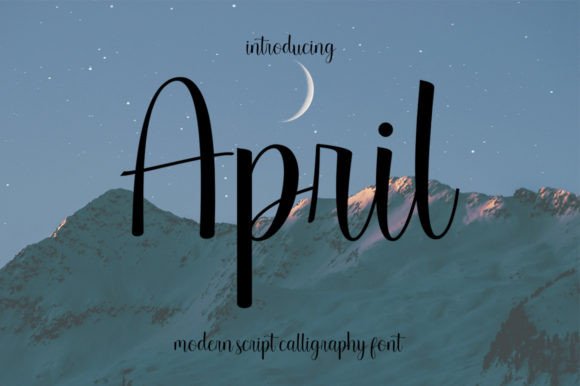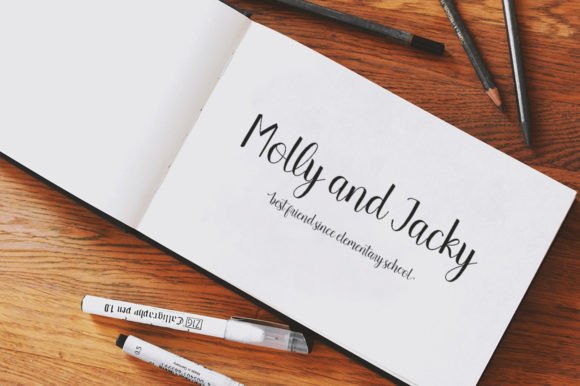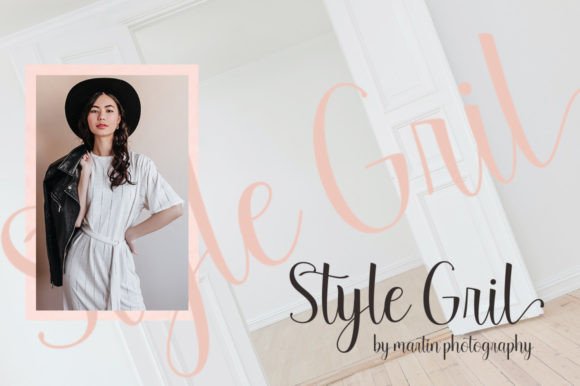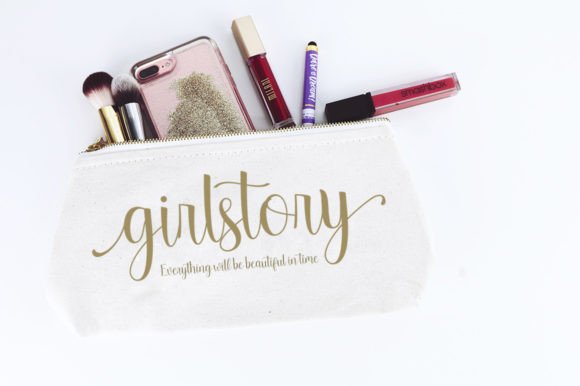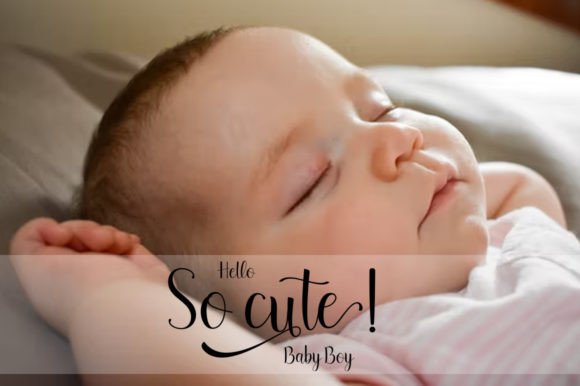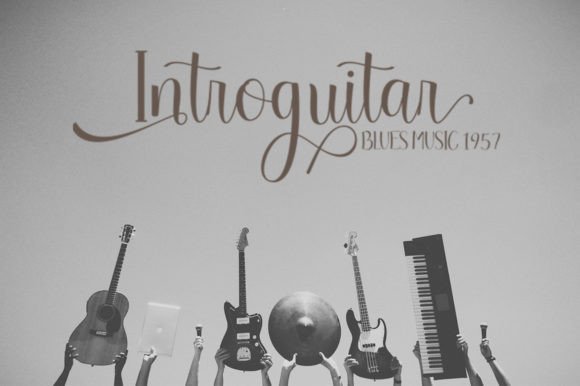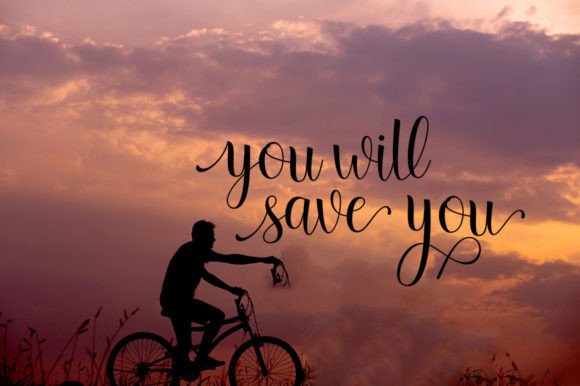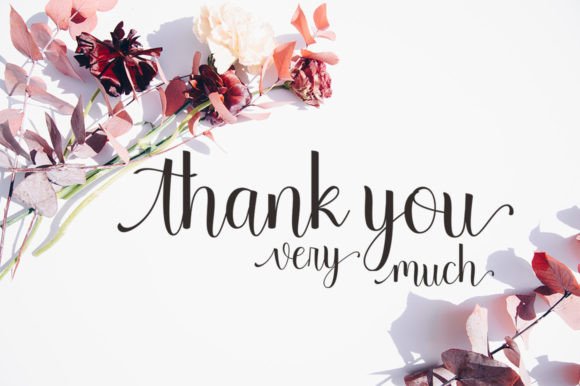
April Font
About April Font
April is an enchanting handwritten font. This versatile script font has a wide spectrum of applications ranging from greeting cards to headlines and is guaranteed to add a romantic feel to your next project.